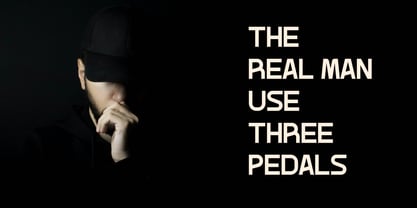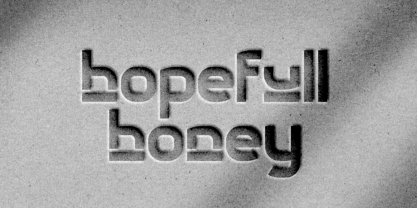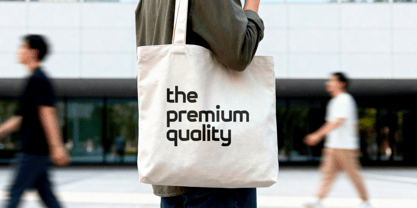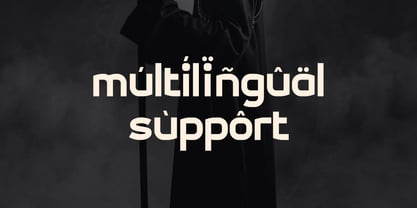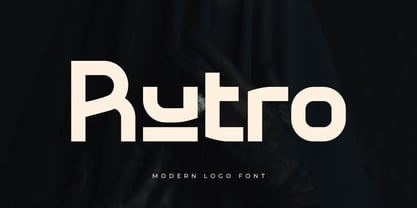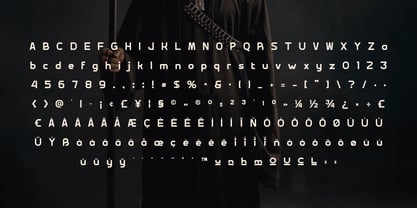
Rutro
La familia tipográfica Rutro fue diseñada por Iwan Alwan y publicada por Artiveko. Rutro contiene 2 estilos y opciones de paquete familiar. Más información sobre esta familia
Rutro is a striking display sans serif typeface crafted to make every headline and logo truly unforgettable. Featuring bold characters, a modern structure, and distinctive letterforms, Rutro merges creativity with exceptional readability, making it an ideal choice for impactful visual communication. This versatile typeface is perfect for logos, branding, posters, packaging, social media content, merchandise, and editorial headlines, infusing confidence and originality into every project. Its contemporary display style ensures eye-catching typography that excels in both print and digital media. Whether you're building a creative brand, launching a new product, or designing compelling marketing materials, Rutro empowers your message to stand out with flair and personality. Rutro is more than just a font — it's a creative display typeface designed to leave a lasting impression.
Artiveko is a font design team based in Indonesia, comprised of several talented font designers who commenced their careers in the font design industry in 2020. With a dedicated focus on crafting fonts, the team members bring their collective expertise and passion to every project they undertake. Situated in Indonesia, Artiveko draws inspiration from the vibrant cultural landscape of the region, infusing their creations with unique flavors and aesthetics.The team's font collection encompasses a diverse range of styles, including serif, sans serif, handwritten, and script typefaces. Each typeface is meticulously crafted to meet the demands of modern design while offering versatility and functionality across various applications. Whether it's the classic elegance of serif fonts, the contemporary appeal of sans serif designs, the personal touch of handwritten scripts, or the expressive flourishes of script fonts, Artiveko ensures that every font reflects their dedication to quality and innovation.Artiveko's fonts have garnered recognition and acclaim, with their works being featured on prominent social media platforms like Creative Market. Through these platforms, the team has been able to connect with a global audience of designers and typographers, further amplifying their reach and influence in the industry. Their fonts are celebrated for their impeccable craftsmanship, attention to detail, and ability to elevate design projects with style and sophistication.As Artiveko continues to evolve and expand its font collection, the team remains committed to pushing the boundaries of typography and setting new standards of excellence. With a relentless focus on creativity, innovation, and collaboration, Artiveko strives to inspire and empower designers around the world with their distinctive and versatile font designs.